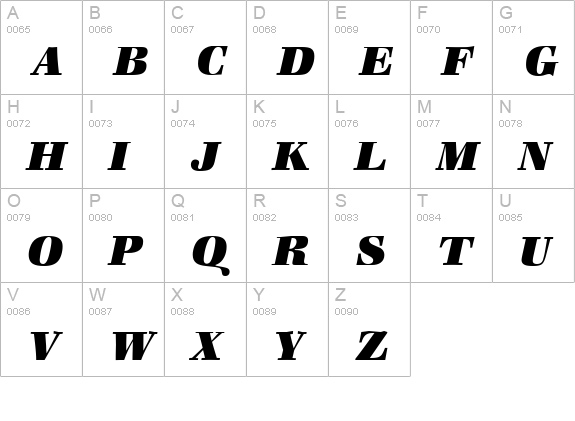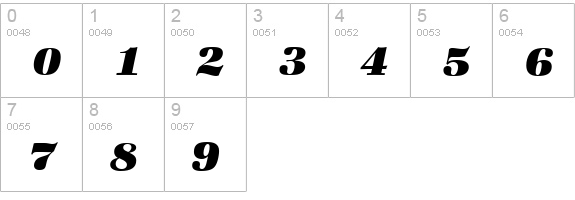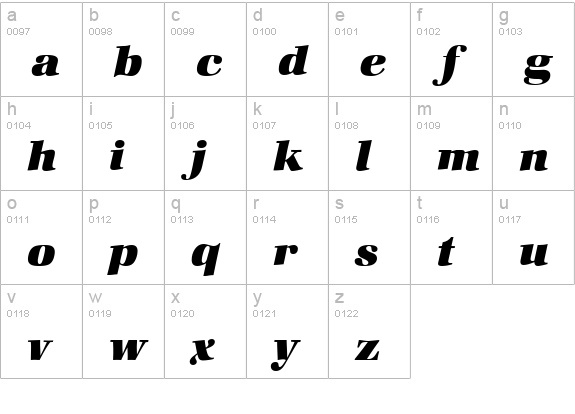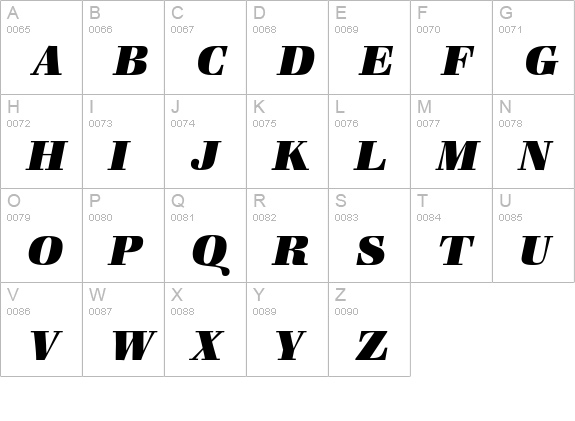
ZabriskieBook-Heavy-Italic is a heavy, high-impact, italic variant in the ZabriskieBook typeface family \xE2\x80\x94 well suited to high-impact headlines, posters, and display advertising.
ZabriskieBook-Heavy-Italic is a stunning and elegant font that exudes sophistication and style. Its heavy weight and italicized design make it perfect for adding a touch of drama and flair to any project. This font is ideal for creating eye-catching headlines, branding materials, and editorial designs that demand attention. The flowing curves and bold strokes of ZabriskieBook-Heavy-Italic make it a versatile choice for both digital and print applications. Whether you're designing a poster, logo, or website, this font will make a bold statement and leave a lasting impression on your audience. Best of all, ZabriskieBook-Heavy-Italic is available for free download at FontsMarket.com. Now you can elevate your designs with this stunning font without breaking the bank. Don't miss out on the opportunity to add ZabriskieBook-Heavy-Italic to your font collection and take your creative projects to the next level.